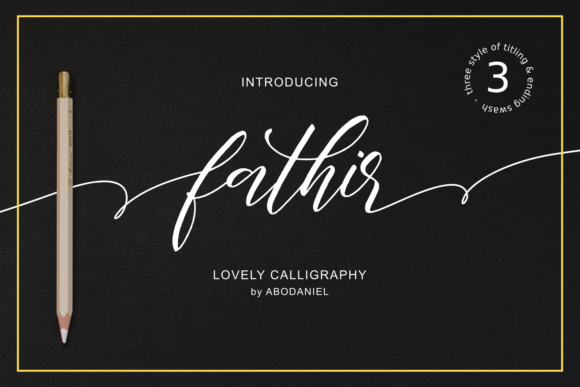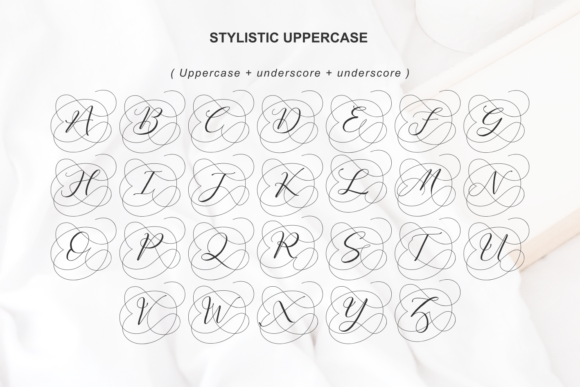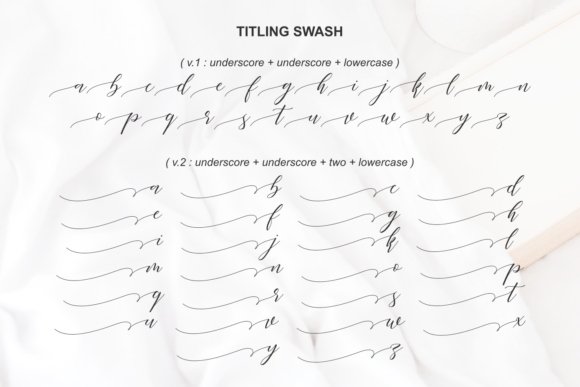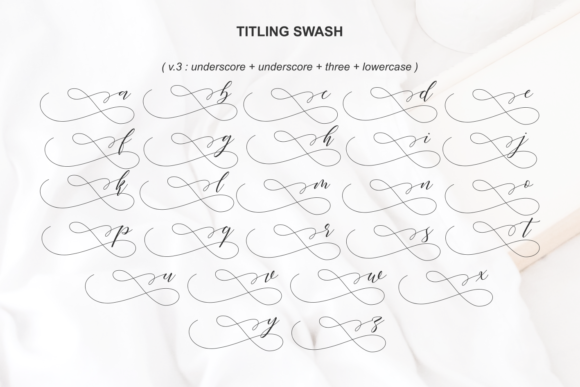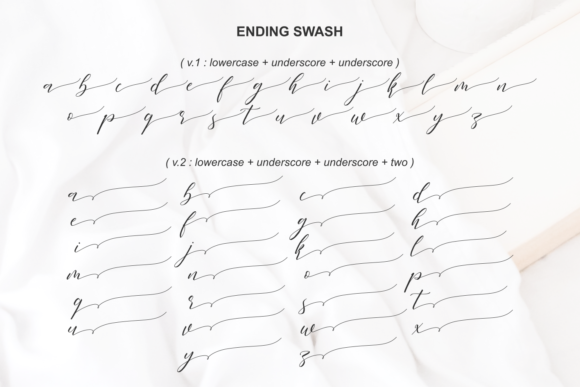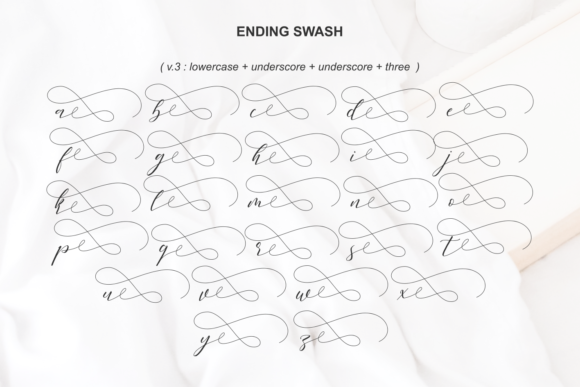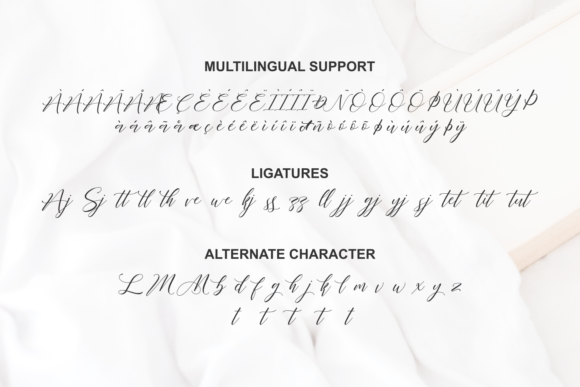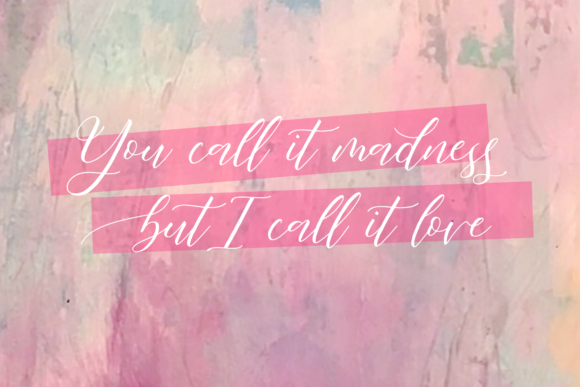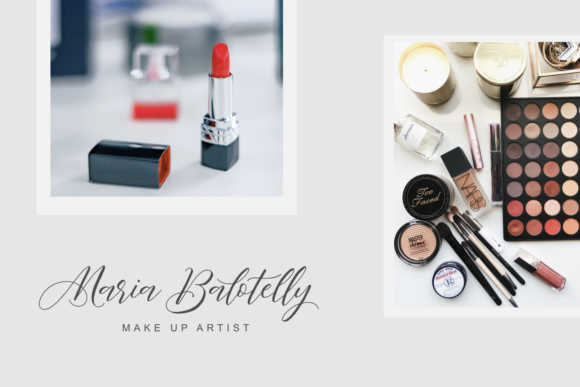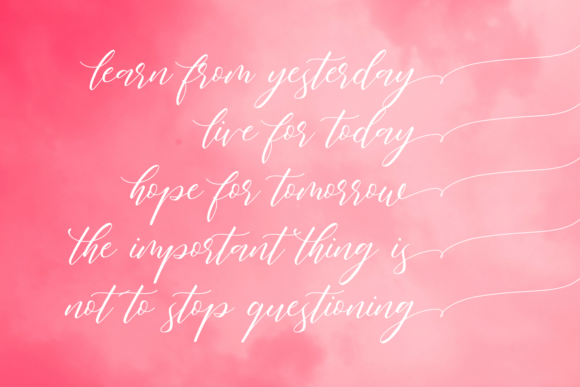
Fathir Font
About Fathir Font
Fathir is a lovely handwritten font that was made with a real brush pen that gives it an authentic feel because of its jagged lines. It will add a romantic twist to any design project!